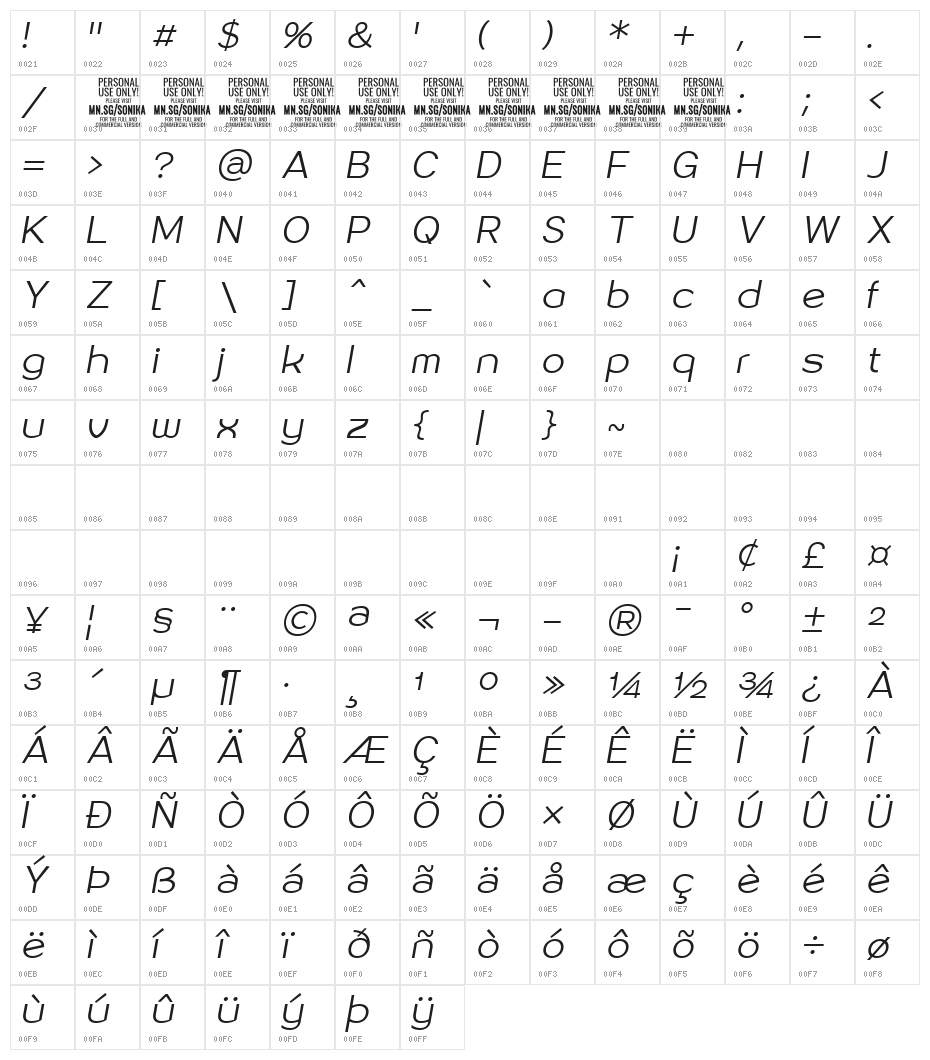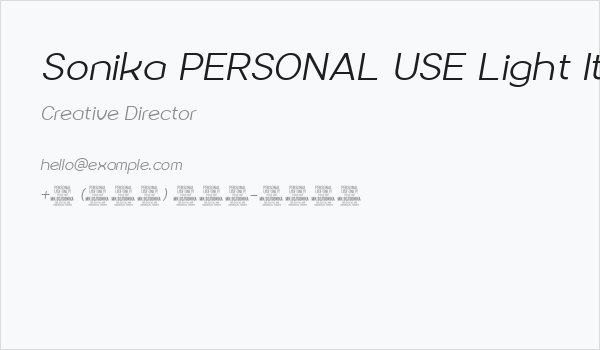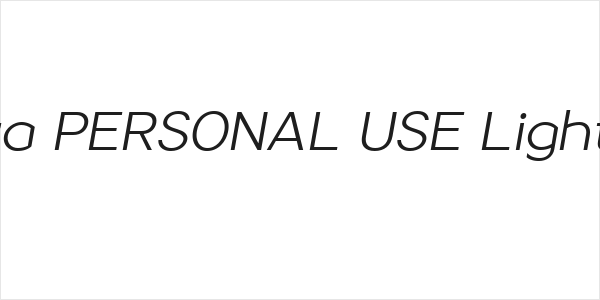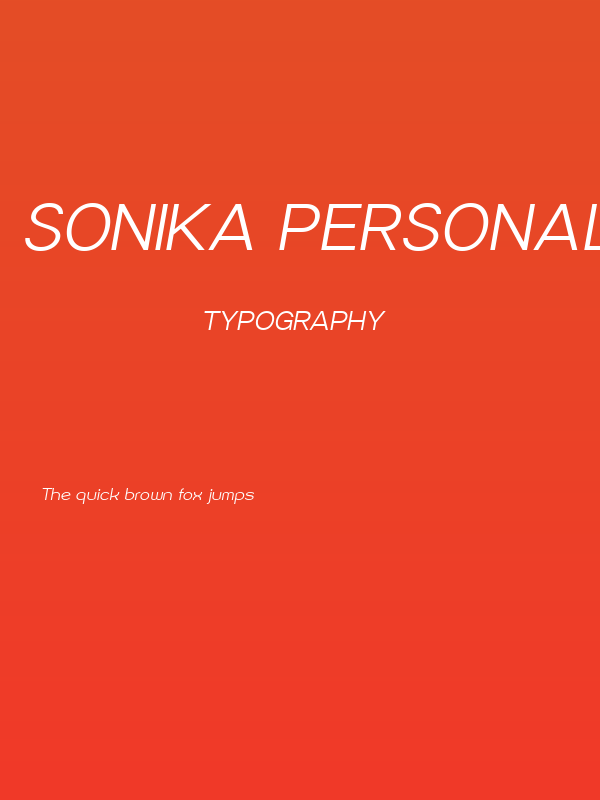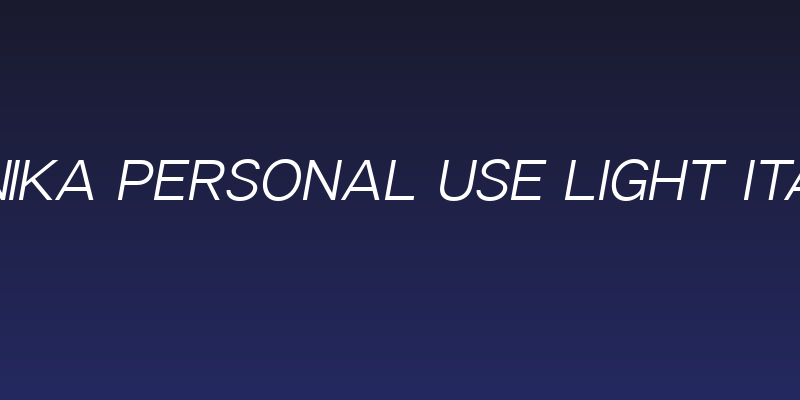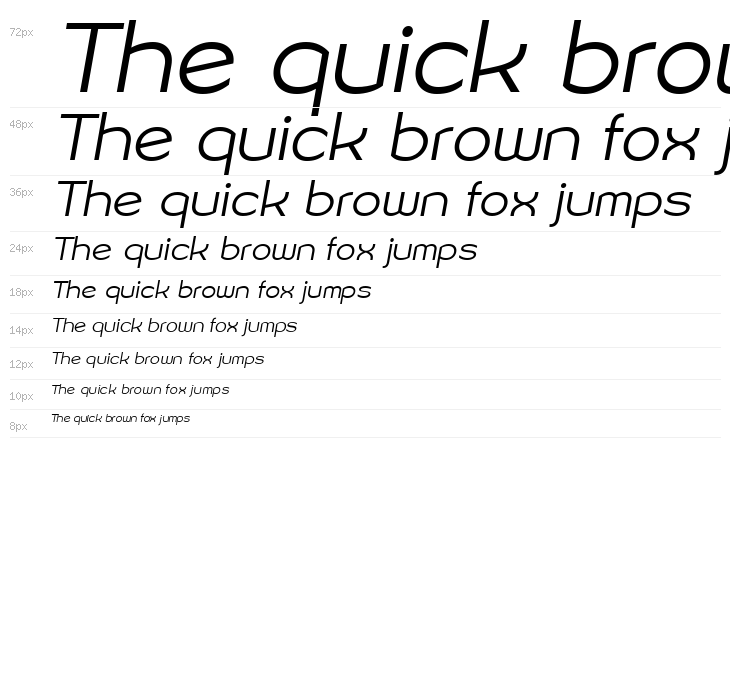
Sonika PERSONAL USE Light Italic Font
Sonika PERSONAL USE Light Italic Description
This font features a sleek and modern design with a light and italicized style. The characters are slightly slanted, giving a sense of motion and elegance. The strokes are thin and consistent, providing a clean and sophisticated appearance. The uppercase and lowercase letters maintain a uniform height, contributing to a harmonious look. The numerals and special characters are designed to complement the alphabet, ensuring readability and aesthetic appeal. This font is ideal for projects that require a contemporary and stylish touch.
| Proposed Projects | Ideal for branding, fashion magazines, modern websites, and elegant invitations. |